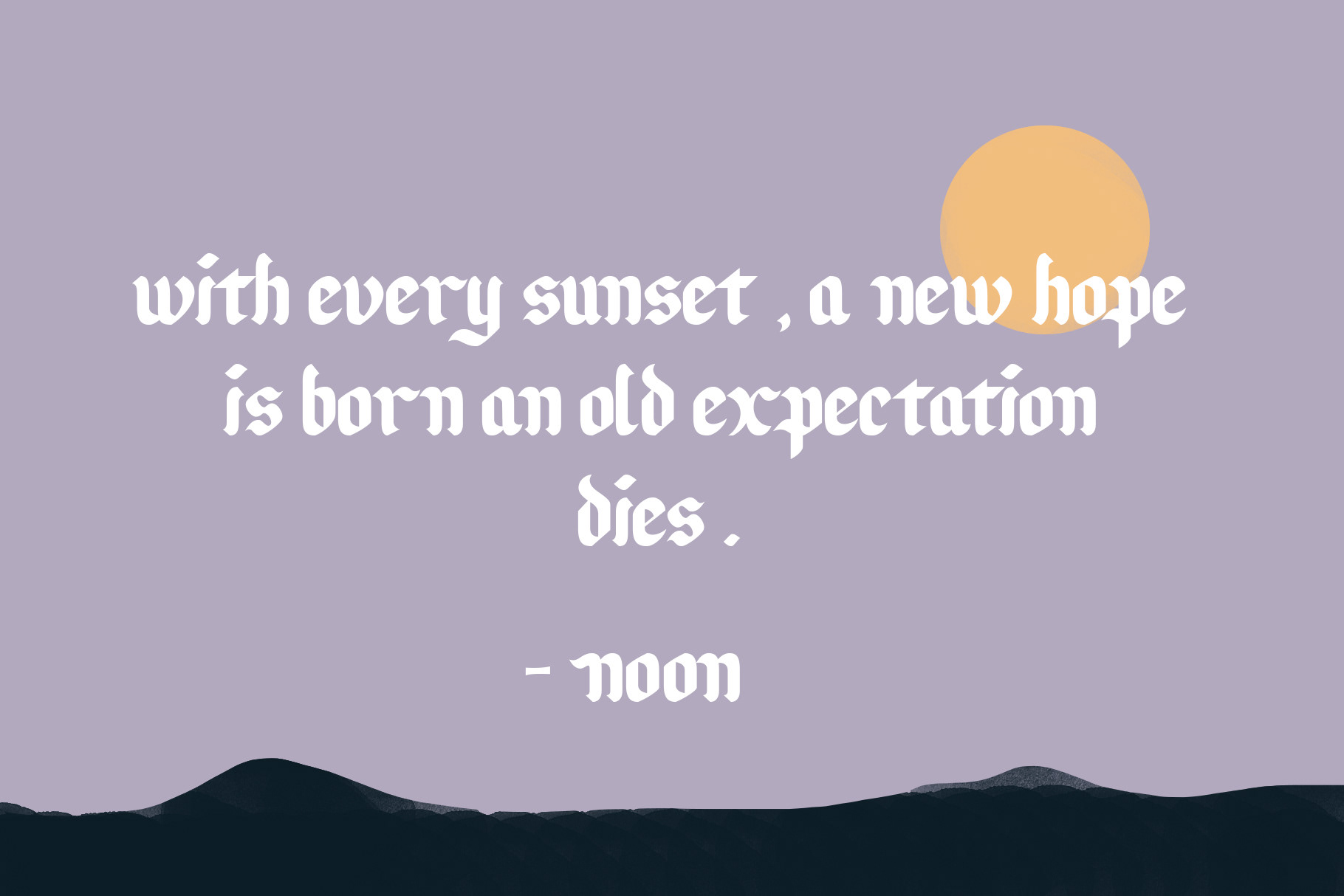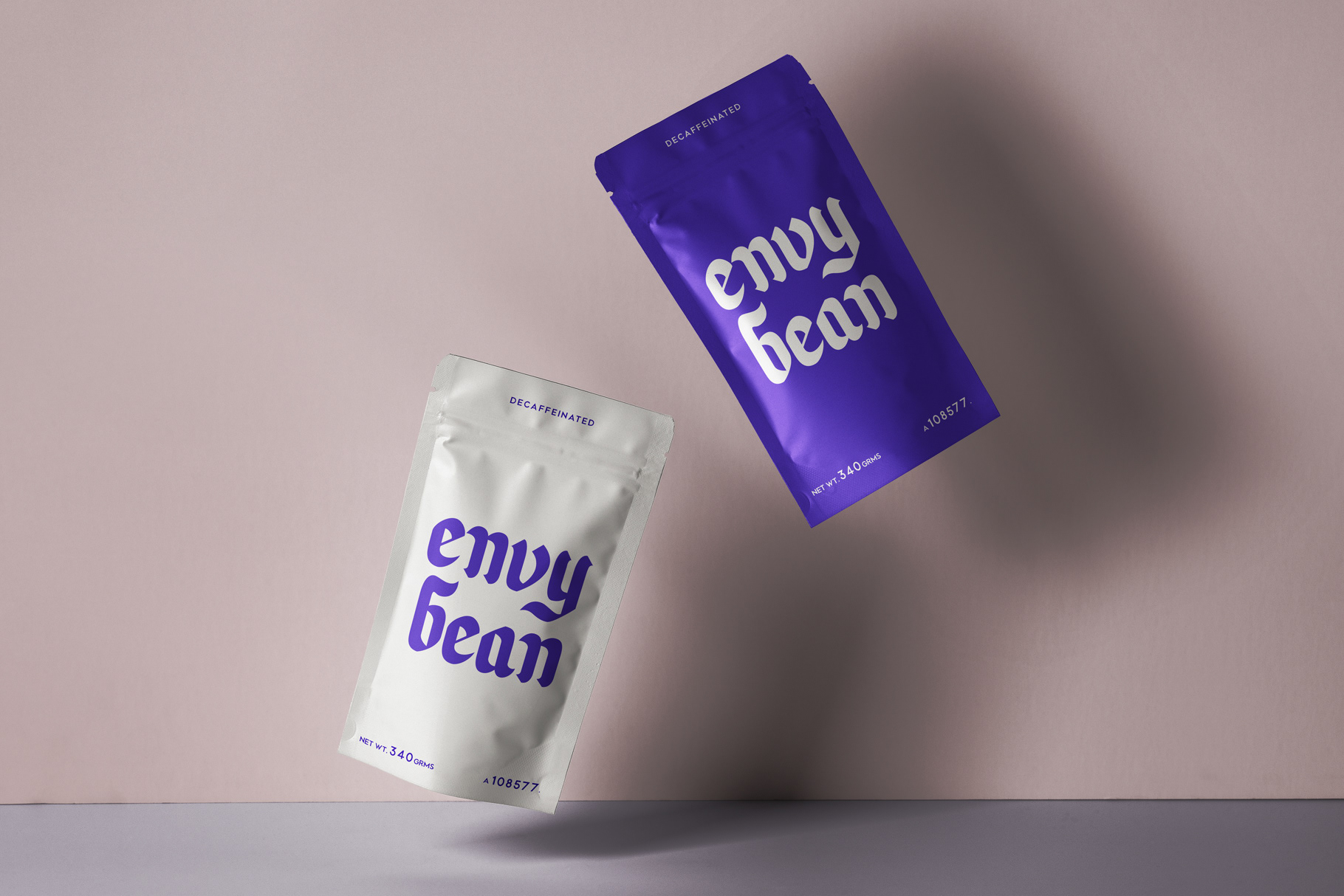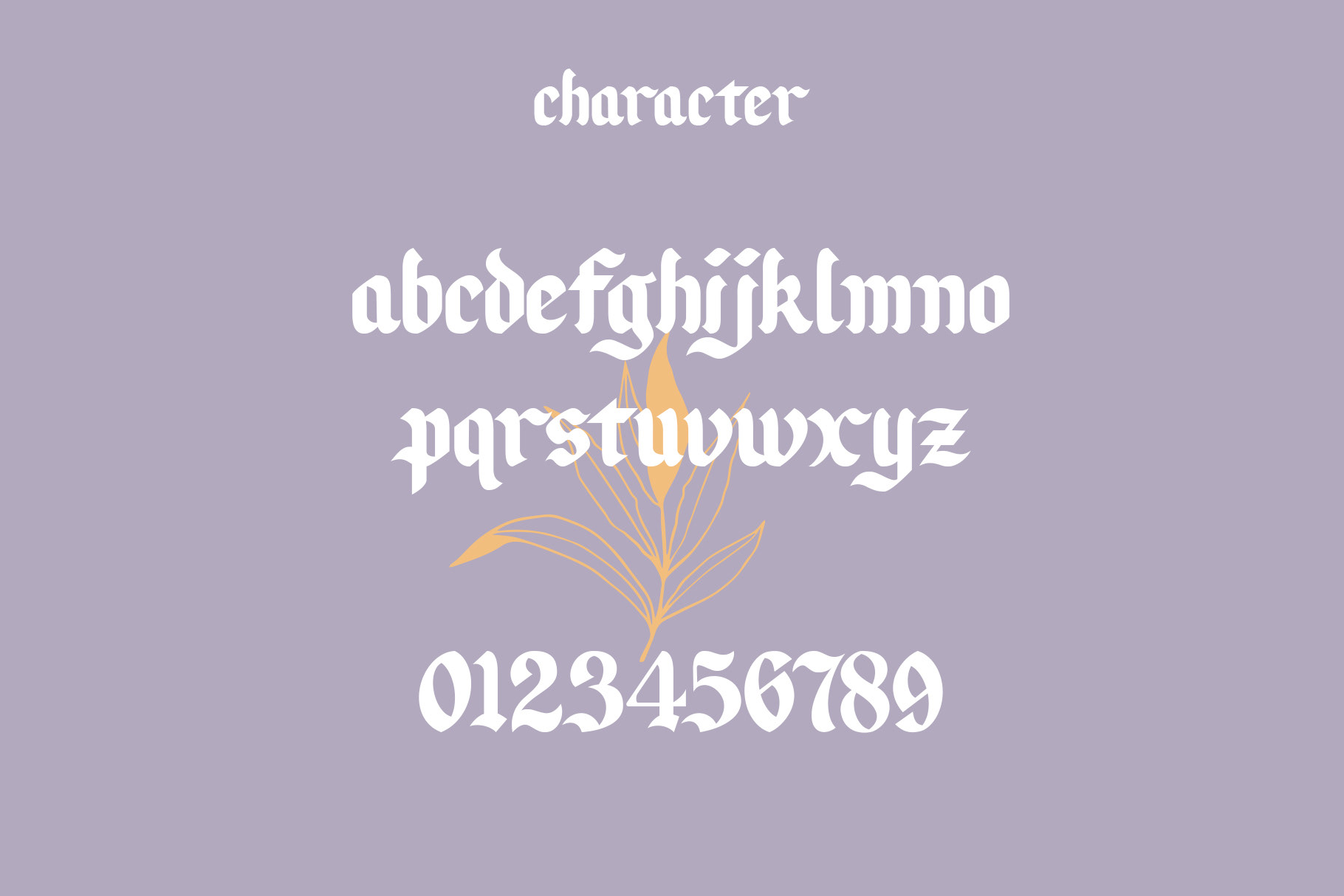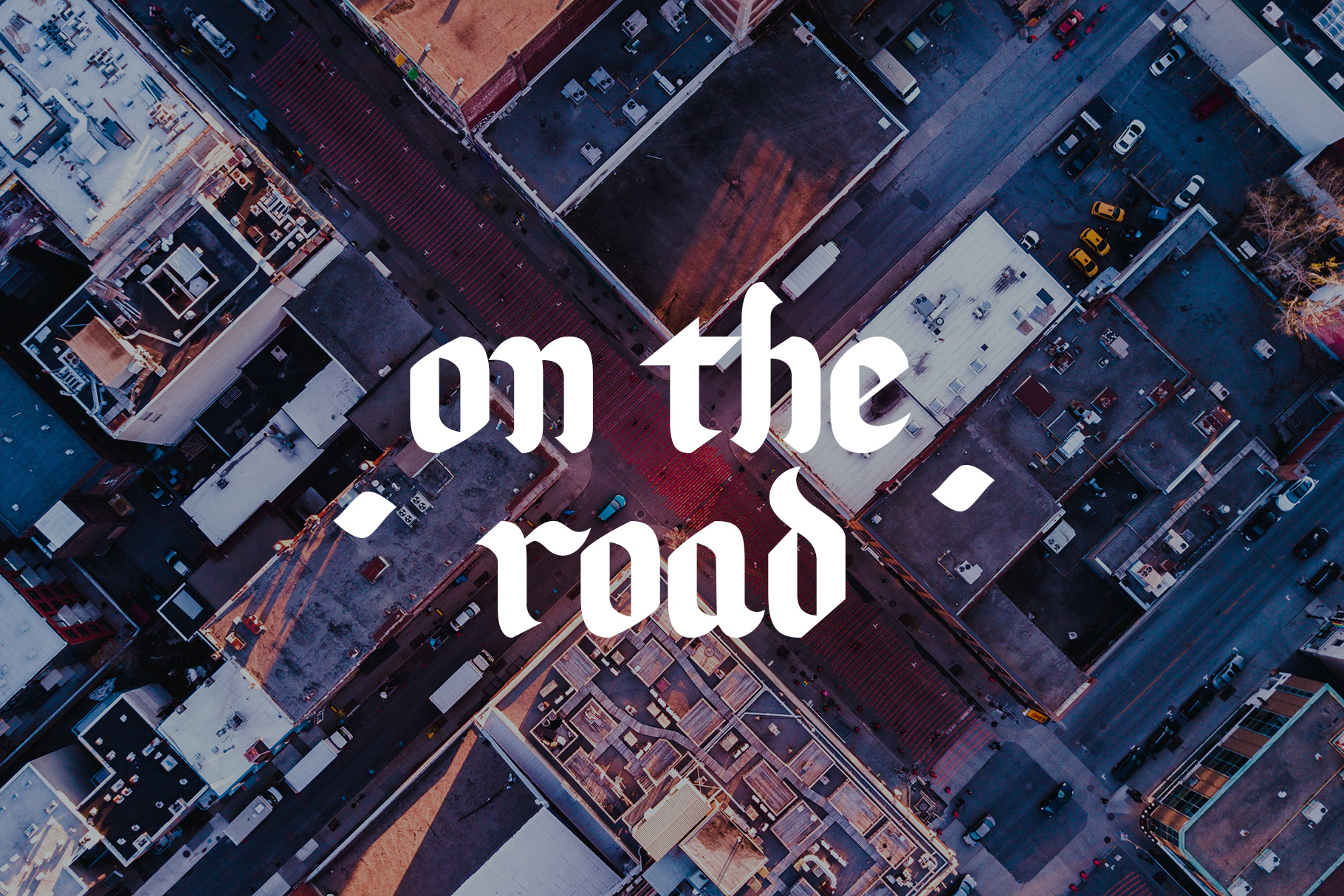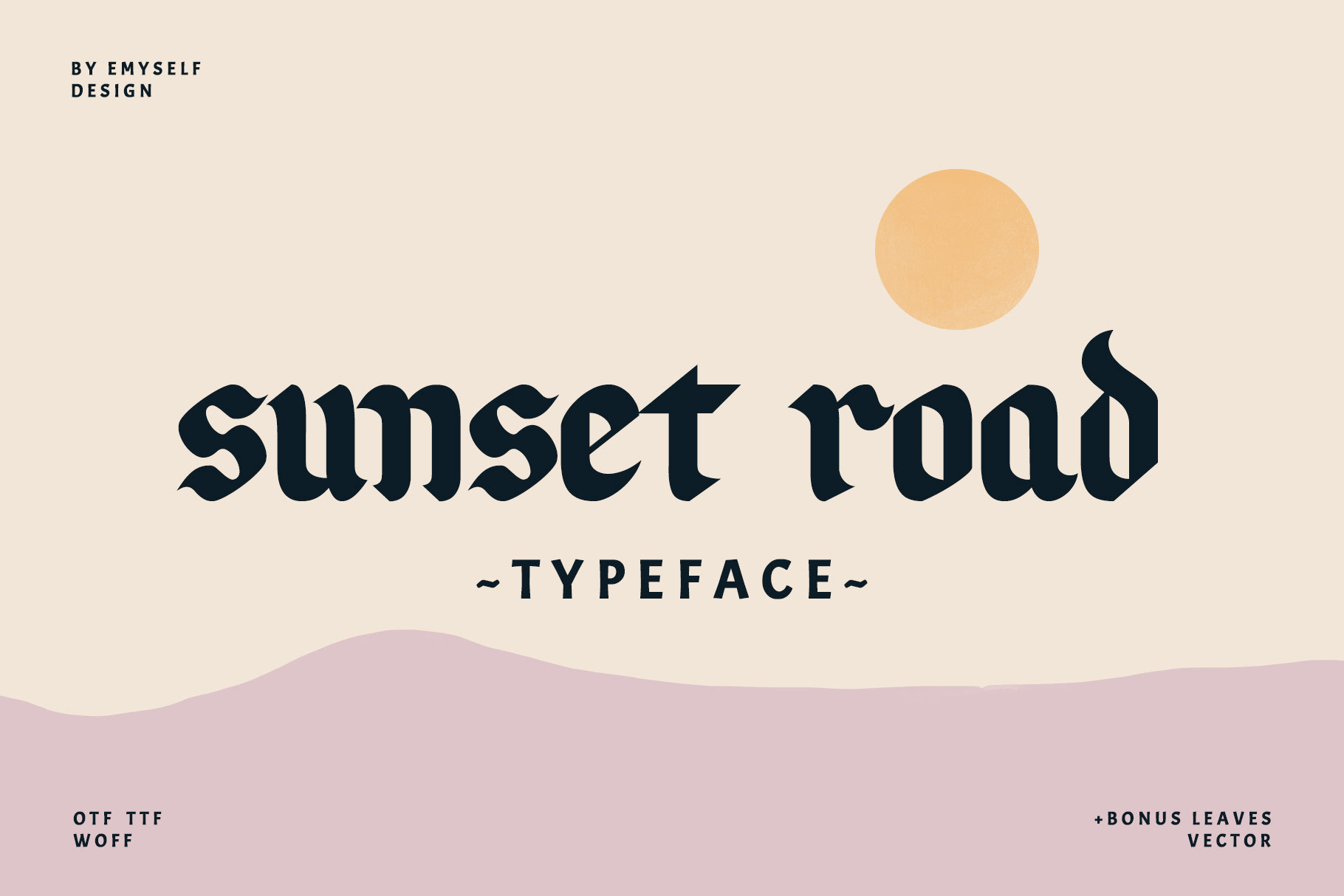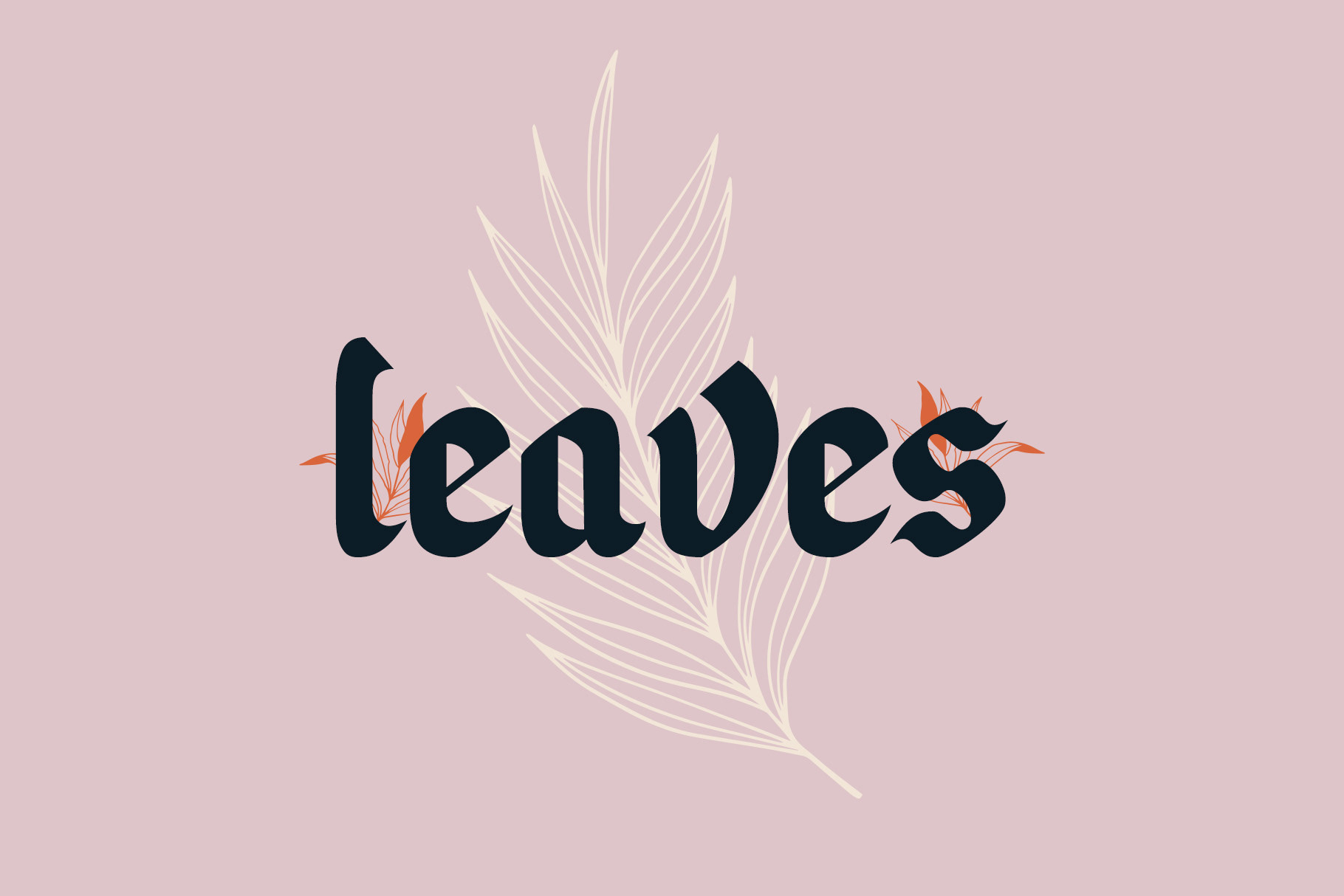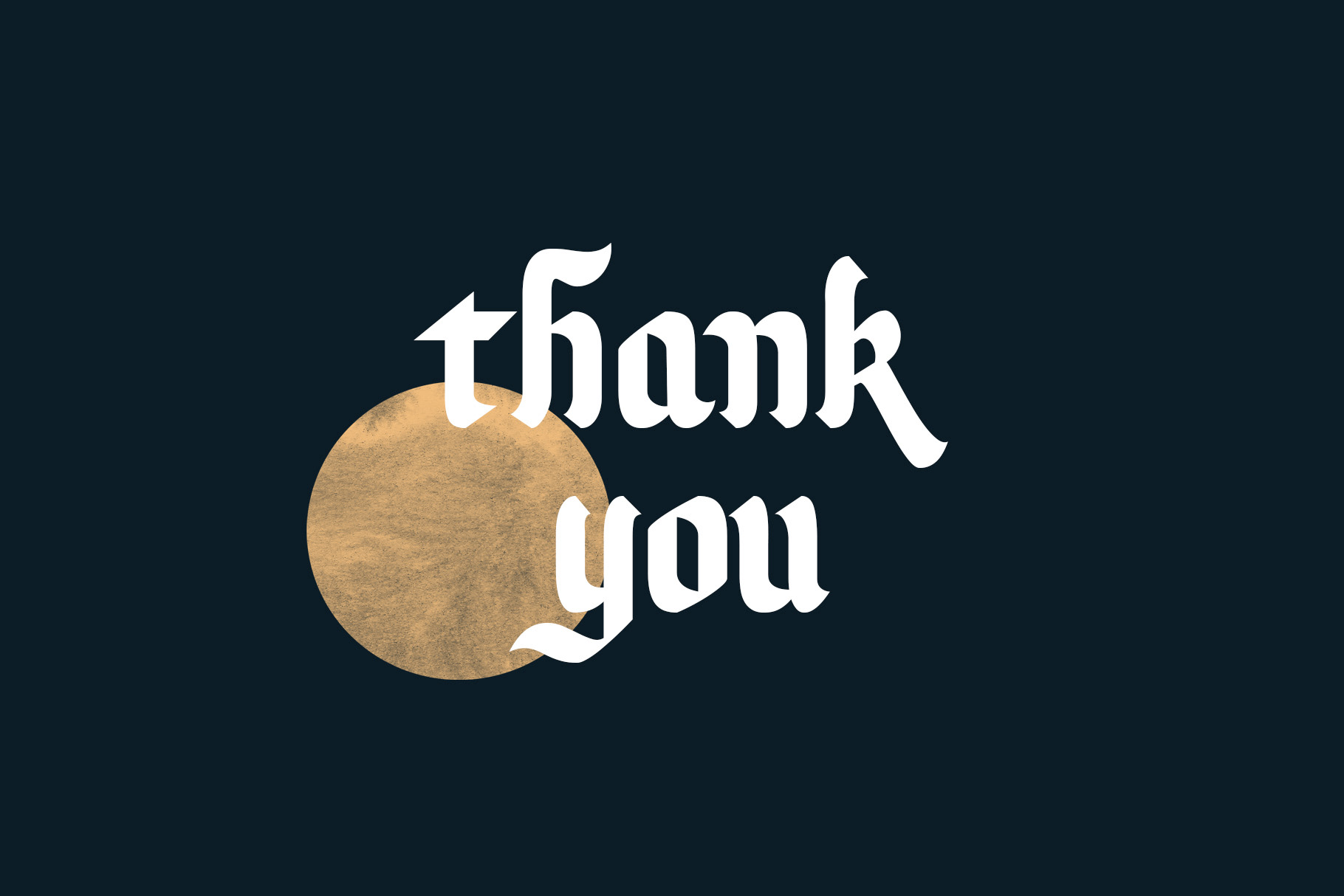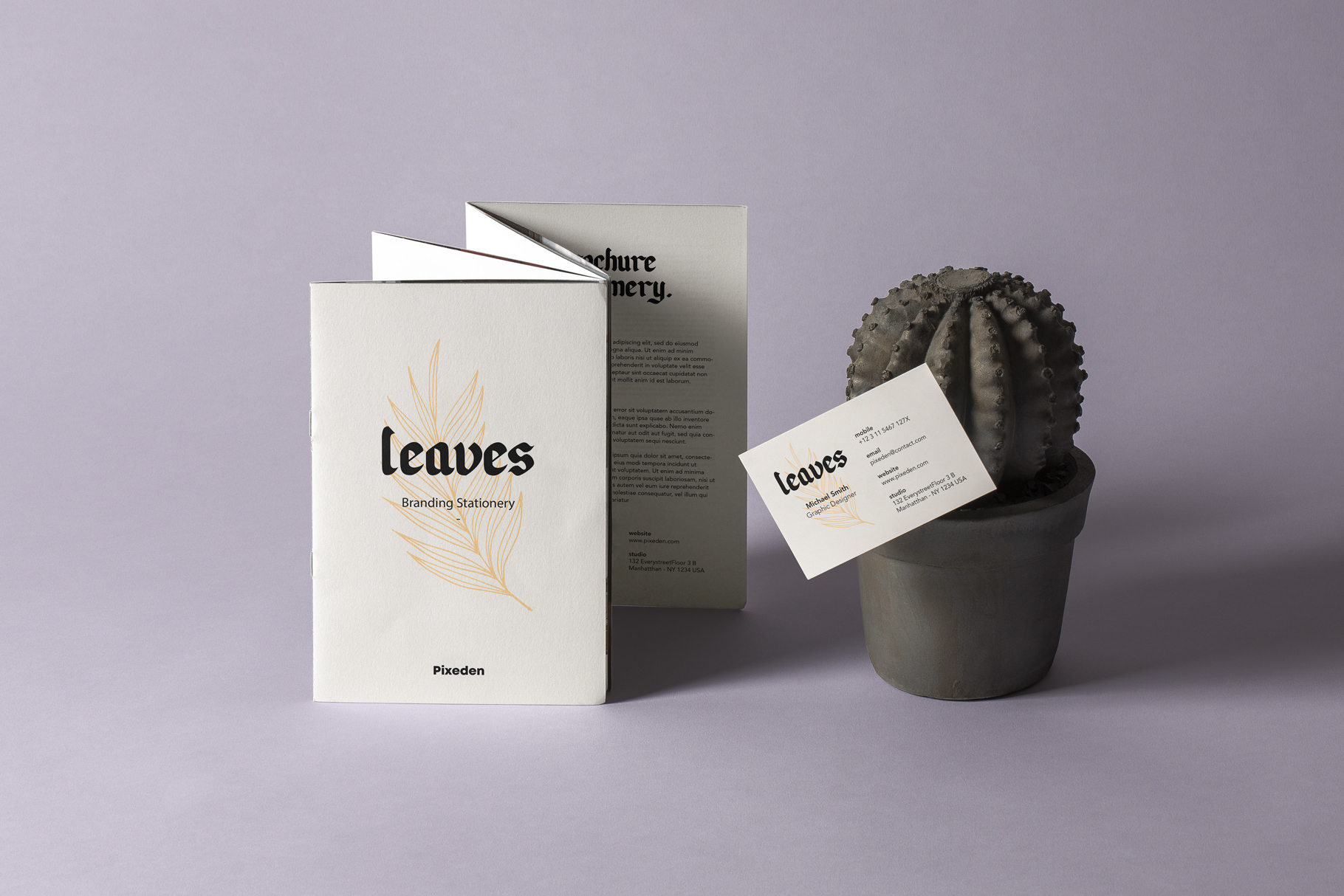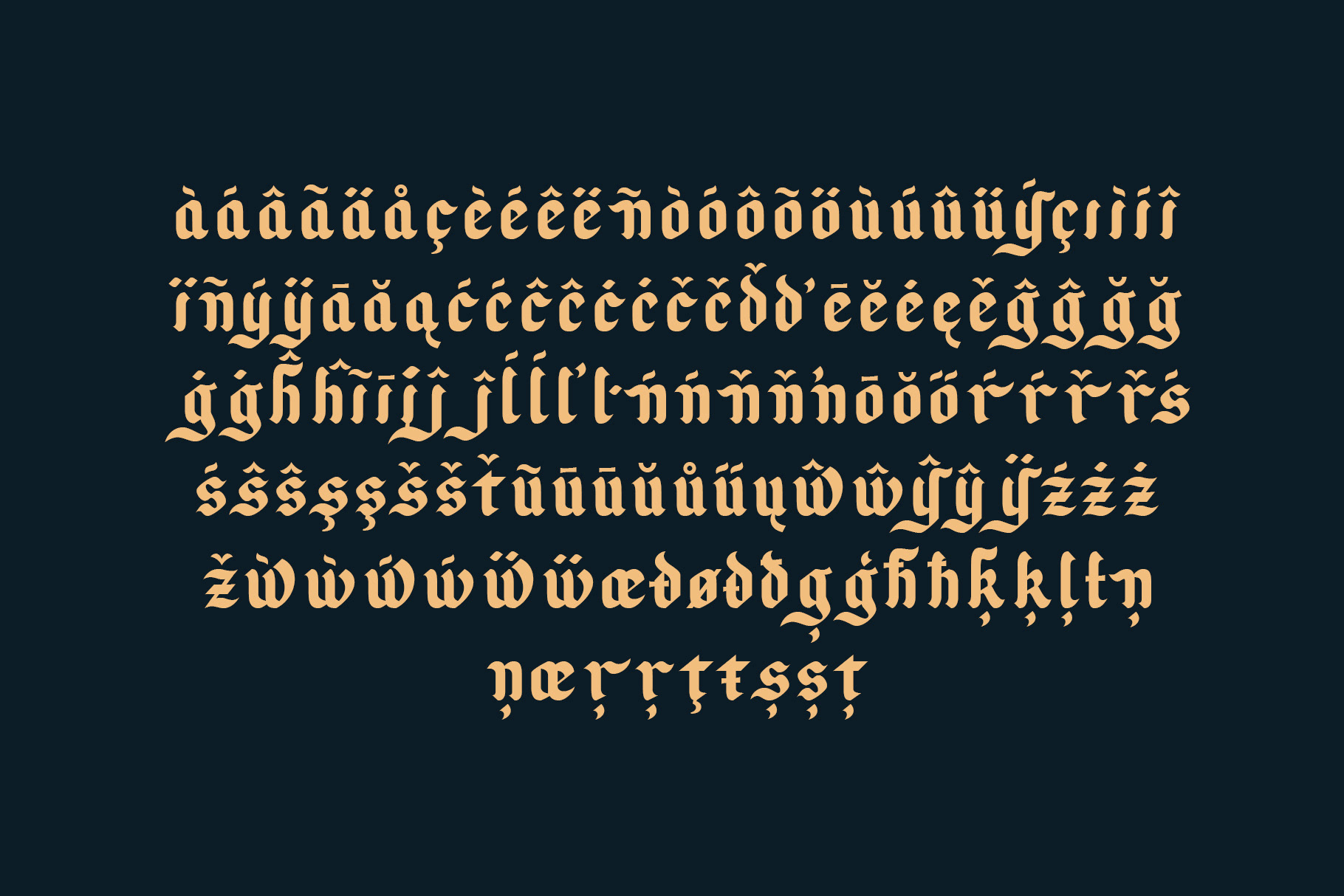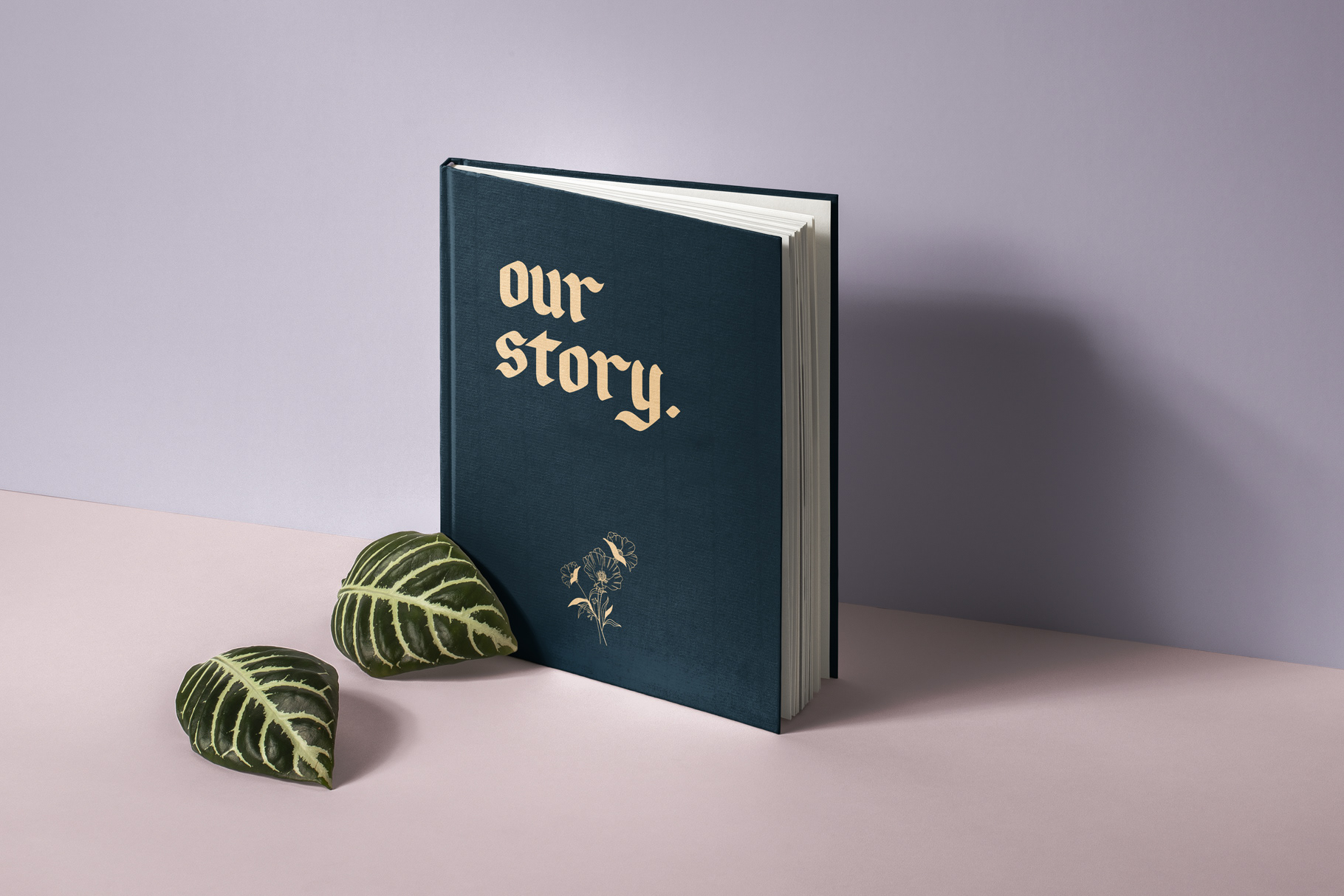
Emyself Design
Sunset Road Typeface
Sunset Road Typeface is a modern and unique blackletter lowercase font. This font is made with references to various letters that I combine and design with my style